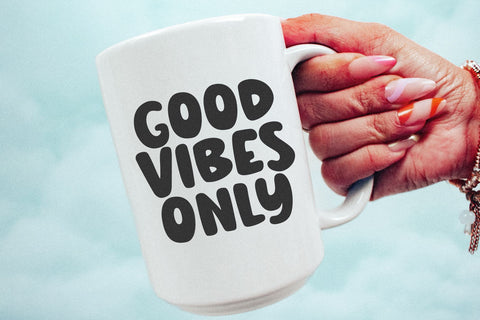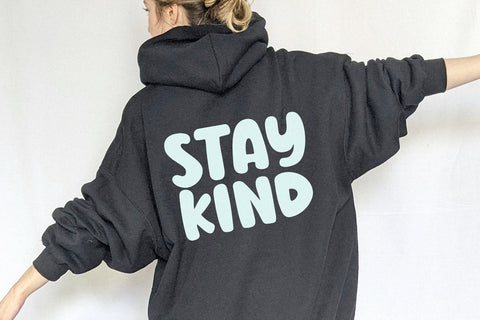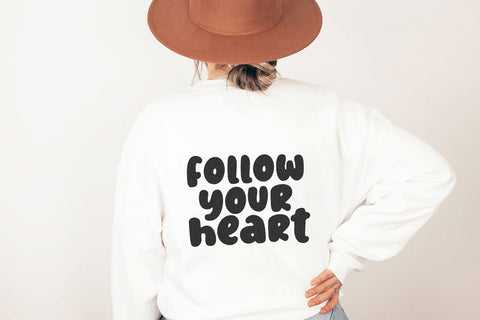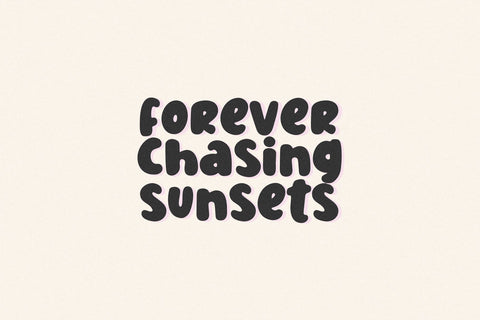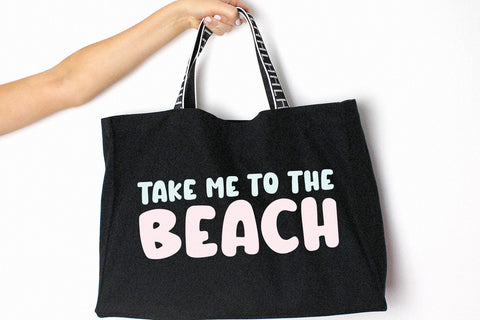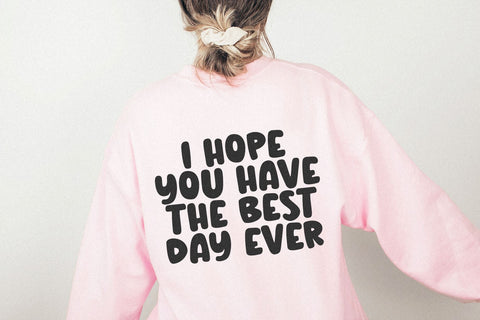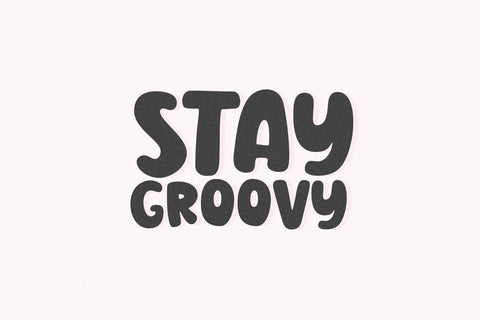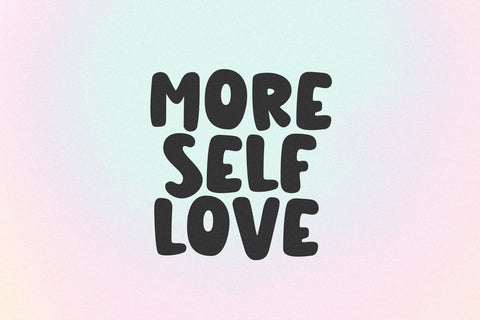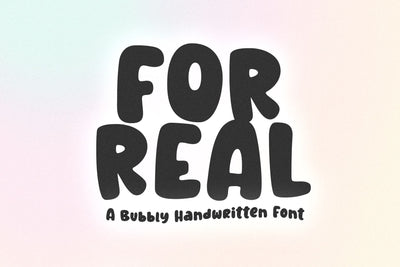
For Real - Bubbly Handwritten Font
For Real is a bubbly font with bouncy hand-drawn letters.
This font is perfect for creating retro shirt designs, stickers, phone cases, instagram quotes, cricut projects, procreate, logos and more!